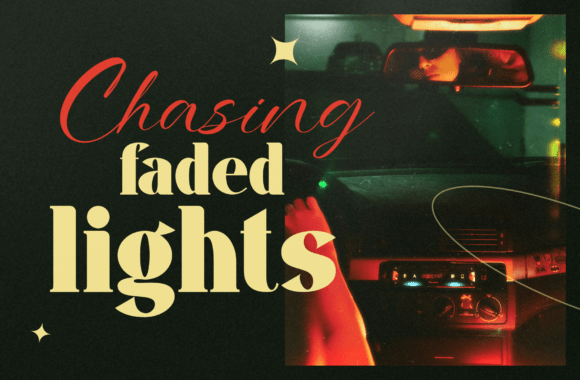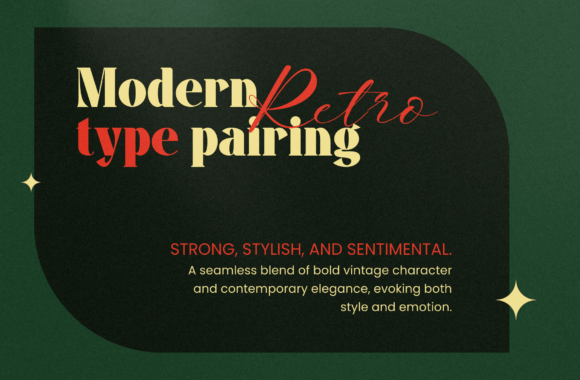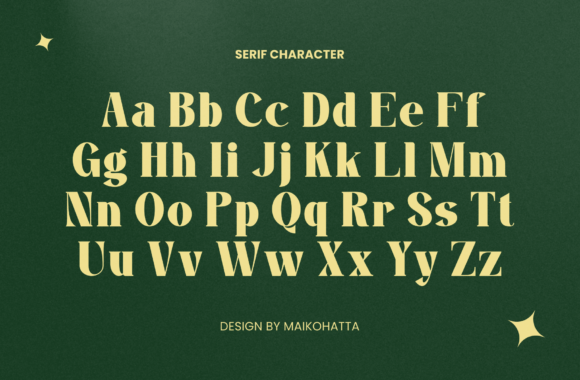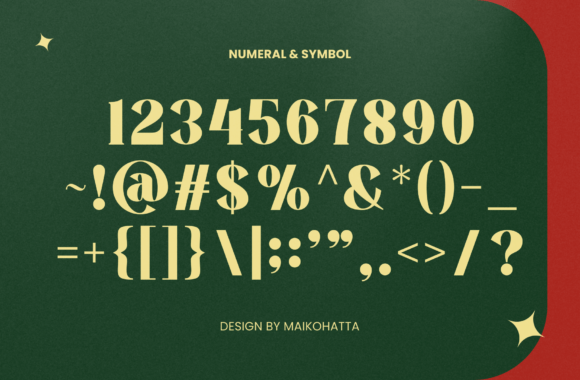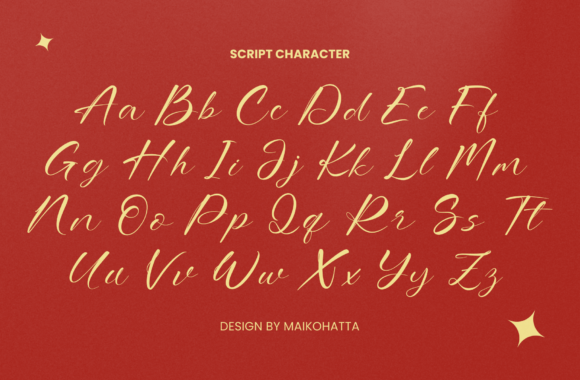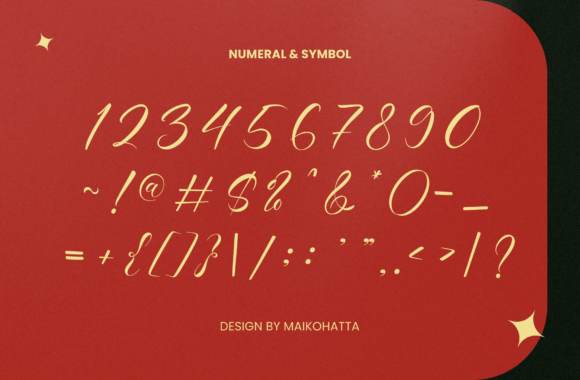
Introduction to Quara Font
Introducing our new product **Quara** Font Duo Typeface Introducing Quara, a stylish font duo that blends modern elegance with timeless character.
Featuring a refined serif and a graceful script, Quara is designed to bring a harmonious balance of structure and flair to any creative project Whether youโre crafting a luxurious brand, designing editorial layouts, or creating romantic stationery, Quara offers the versatility and charm to make your message unforgettable.
Key Features of Quara Font
Why Choose Quara Font?
Quara Font offers exceptional quality and versatility, making it a valuable addition to your design toolkit. Whether you’re creating for personal projects or commercial use, Quara Font delivers professional results.